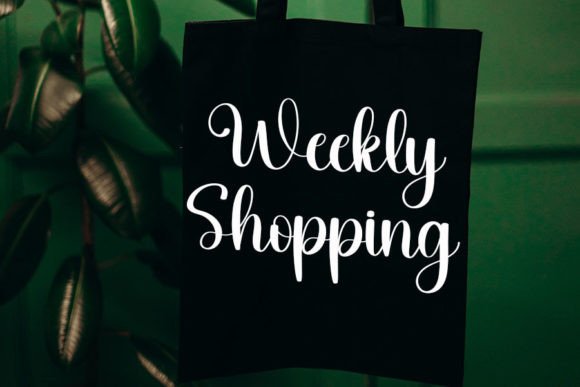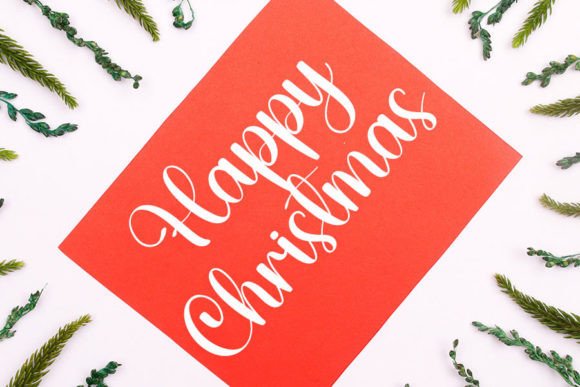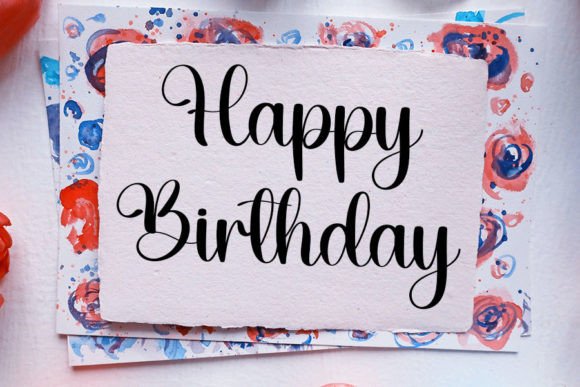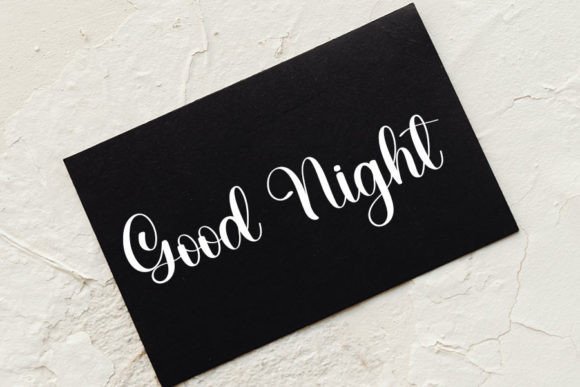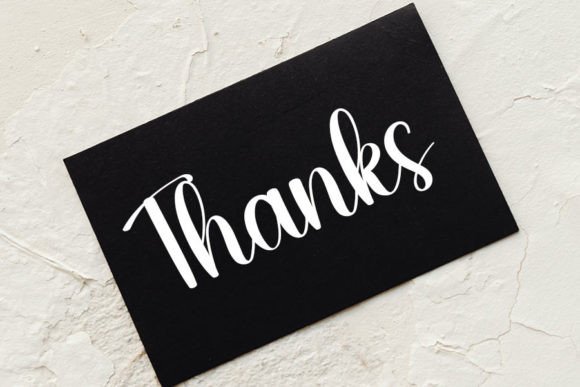
Dolly Font
About Dolly Font
Dolly font is a simple and friendly handwritten typeface designed to bring a warm and approachable feel to all your creative projects. When you download Dolly font, you gain access to a versatile style that suits a variety of applications, making it a reliable choice for any occasion.
Perfect for Craft Projects
For anyone who enjoys crafting, Dolly font adds a personal and charming touch. Its handwritten look makes it ideal for scrapbooking, DIY cards, and various handmade projects. Download Dollyfont to create designs that feel authentic and heartfelt.
Ideal for Digital Design
Dollyfont is perfect for digital designs such as social media graphics, website elements, and marketing materials. By downloading Dollyfont, you can easily add a friendly, inviting vibe to your digital content that resonates with viewers.
Great for Presentations and Greeting Cards
Whether you’re preparing a presentation or designing greeting cards, Dollyfont offers clear readability and an appealing aesthetic. Download Dollyfont to make your messages feel genuine and engaging, enhancing the overall impact of your work.